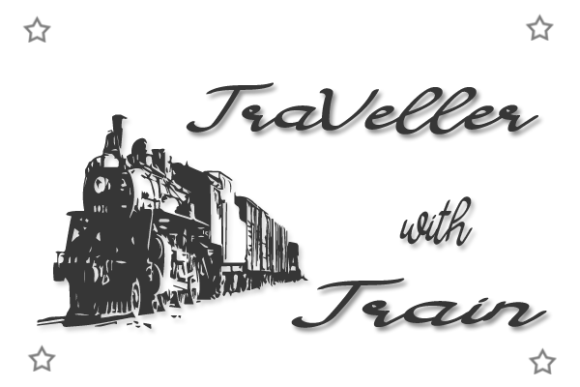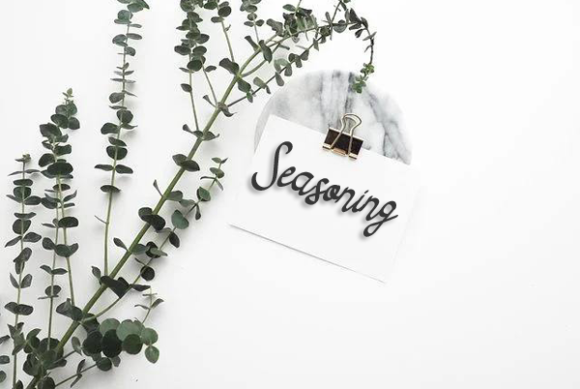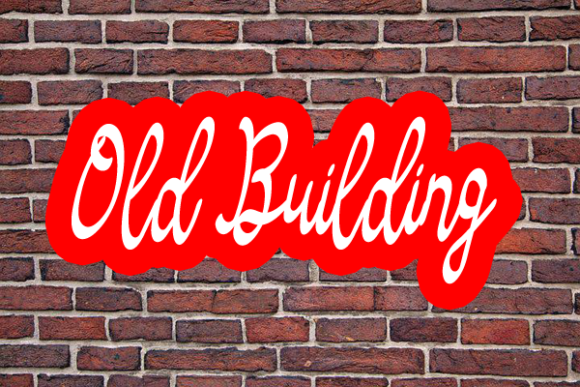
Introducing Blacksweet Font: The Perfect Choice for Romantic and Personalized Designs
Are you a designer or crafter looking for a font that can add a touch of romance and personality to your designs? Look no further than Blacksweet Font! This beautiful, handwritten font is perfect for creating wedding invitations, cards, and other designs that require a sweet and joyful feel.
What is Blacksweet Font?
Blacksweet Font is a dainty and flowing handwritten font that is sure to capture the hearts of designers and crafters alike. Its sweet and joyful vibe makes it an ideal choice for a variety of design projects, from wedding invitations and cards to branding and packaging.
Key Features of Blacksweet Font
- Handwritten style: Blacksweet Font has a beautiful, handwritten style that gives it a personal and unique touch.
- Dainty and flowing: The font’s dainty and flowing lines make it perfect for creating elegant and sophisticated designs.
- Sweet and joyful: The font’s sweet and joyful vibe makes it ideal for creating designs that require a romantic and personalized touch.
- Versatile: Blacksweet Font can be used for a variety of design projects, from wedding invitations and cards to branding and packaging.
Uses for Blacksweet Font
Blacksweet Font is a versatile font that can be used for a variety of design projects. Here are some of the most popular uses for this beautiful font:
- Wedding invitations: Blacksweet Font is perfect for creating beautiful and elegant wedding invitations that will set the tone for your special day.
- Cards: The font’s sweet and joyful vibe makes it ideal for creating cards for special occasions, such as birthdays, anniversaries, and holidays.
- Branding and packaging: Blacksweet Font can be used to create beautiful and elegant branding and packaging designs that will help your business stand out.
- Social media graphics: The font’s dainty and flowing lines make it perfect for creating social media graphics that require a personal and unique touch.
Tips for Using Blacksweet Font
Here are some tips for using Blacksweet Font in your designs:
- Pair it with other fonts: Blacksweet Font can be paired with other fonts to create a unique and interesting design.
- Use it for headings and titles: The font’s dainty and flowing lines make it perfect for use as headings and titles.
- Experiment with colors: Blacksweet Font can be used with a variety of colors to create a unique and personalized design.
Blacksweet Font is a beautiful and versatile font that is perfect for designers and crafters looking to add a touch of romance and personality to their designs. Its sweet and joyful vibe makes it ideal for creating wedding invitations, cards, and other designs that require a personal and unique touch. With its dainty and flowing lines, Blacksweet Font is sure to capture the hearts of designers and crafters alike.
Whether you’re a professional designer or a crafter looking for a unique font for your next project, Blacksweet Font is a great choice. So why not give it a try and see how it can add a touch of romance and personality to your designs?